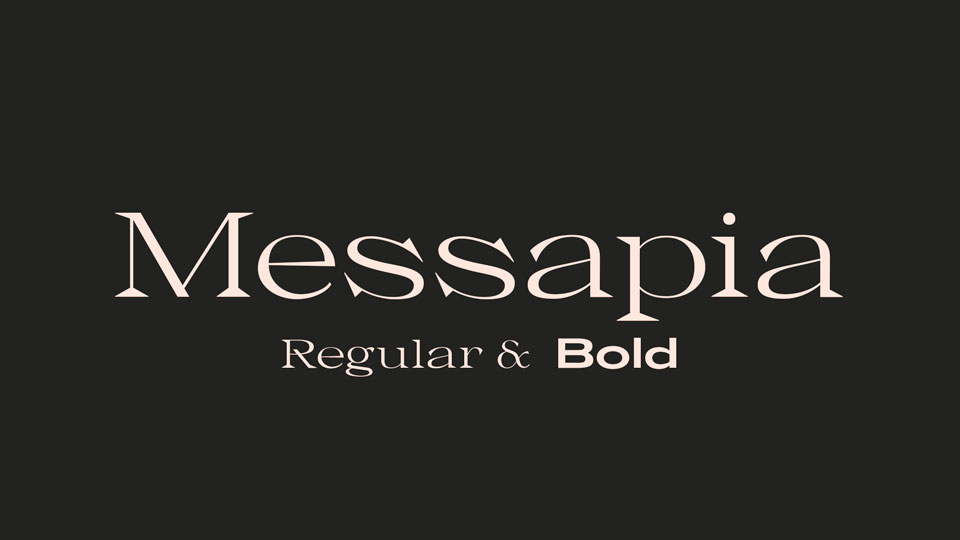
Download Messapia typeface, a font family with two styles: the first is a Serif, inspired by an old font from the 19th century, the second is a Sans Serif bold extended.